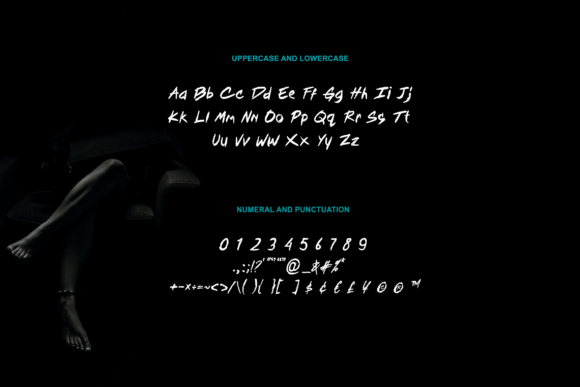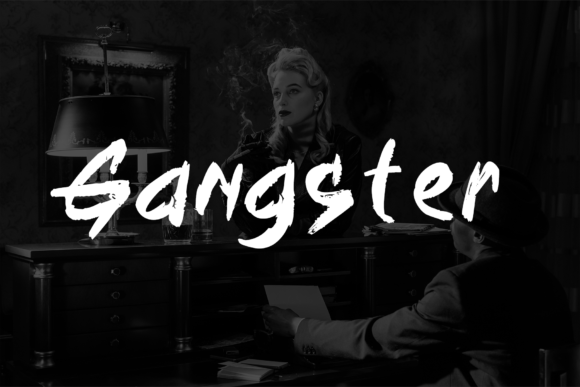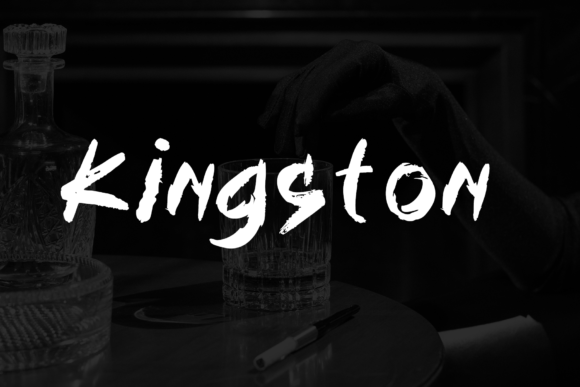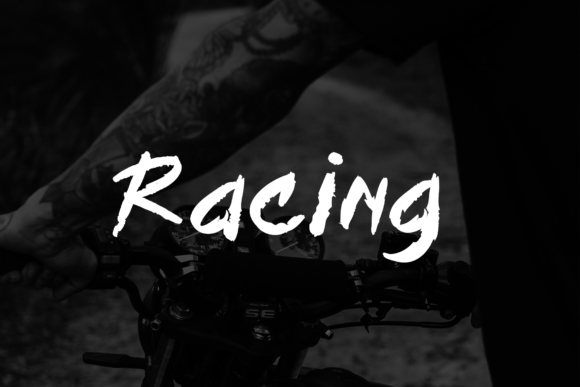
A First Impression: What Makes Deadlock Brush Font Special
Deadlock Brush Font is a typeface that features a hand-drawn design style, giving the text a unique and authentic feel. It has thick brush strokes that create a bold and impactful look, while also maintaining a sense of elegance and sophistication. The letters in Deadlock Brush Font have a slightly irregular and uneven appearance, creating a natural and organic flow of text. This font is perfect for branding projects, logos, and headings, as it provides a contemporary and artistic touch to any design.
- ✨ Unique, hand-drawn design that adds an authentic touch to any project
- ✅ Thick brush strokes that create a bold and impactful look
- ✅ Maintains a sense of elegance and sophistication, making it perfect for high-end branding projects
- ✅ Includes a set of uppercase and lowercase letters, numerals, and punctuation marks, making it versatile for various design projects
- ⚠️ Some users may find the font a bit too bold for certain projects
- 🤔 Limited use for body text, as it’s best suited for headings and titles
The Deadlock Brush Font was inspired by the world of street art and graffiti. The designer wanted to create a font that captured the bold, expressive spirit of street art, while still maintaining a sense of elegance and sophistication. The result is a font that’s perfect for designers who want to add a unique and authentic touch to their projects.
| Font Name | Deadlock Font |
| Author | Portype Studio |
Q: Can I use Deadlock Brush Font for body text?
A: While Deadlock Brush Font is best suited for headings and titles, it’s not recommended for body text due to its bold and expressive nature.